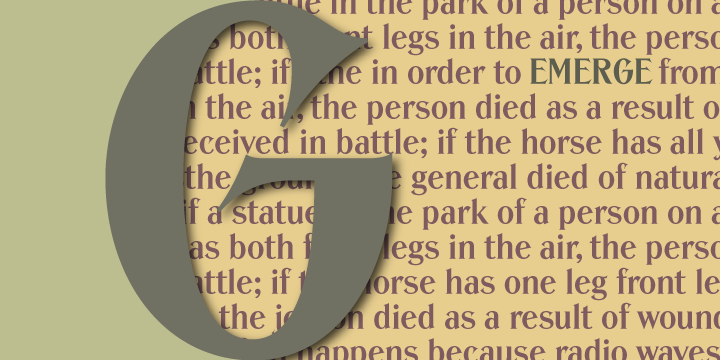
Emerge BF was inspired by Admiral, c.1900, from the Keystone Type Foundry.
Its relatively condensed proportions allow for a close fit in a distinctive, yet highly legible form.
It’s a great choice for headlines and text settings (where it shows a beautifully crisp, typographic color) on book covers, magazine advertisements, posters and so forth.